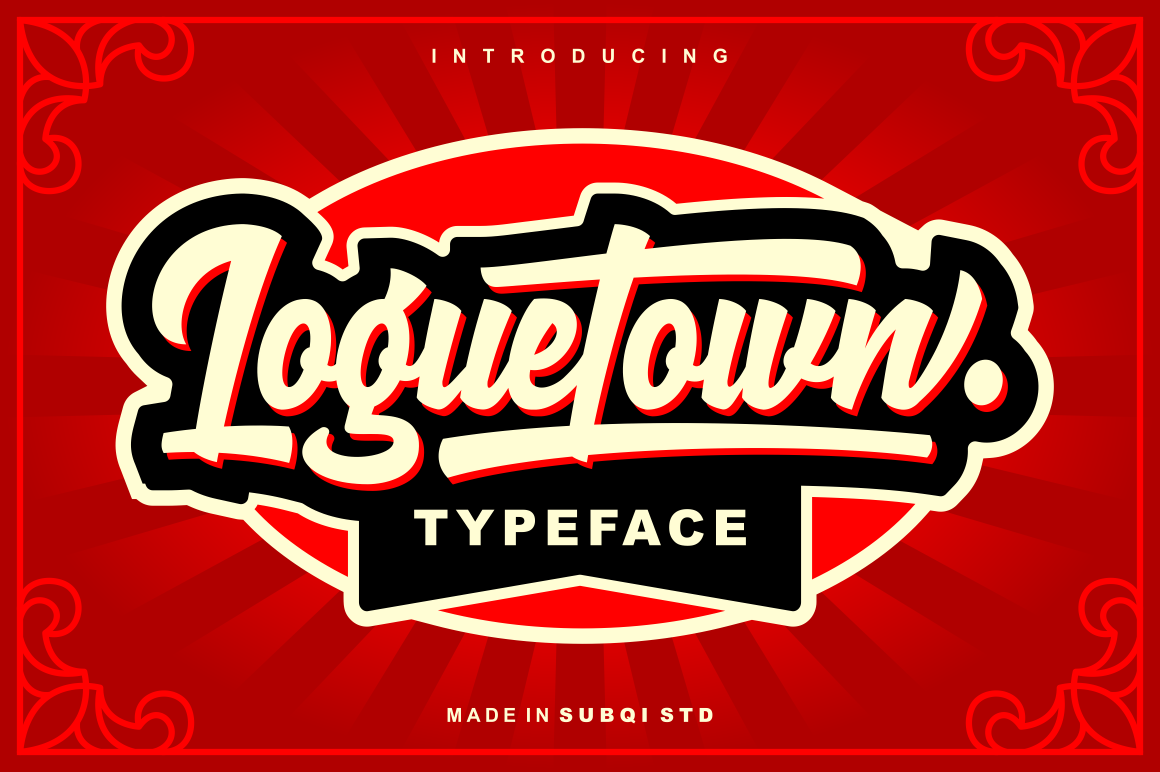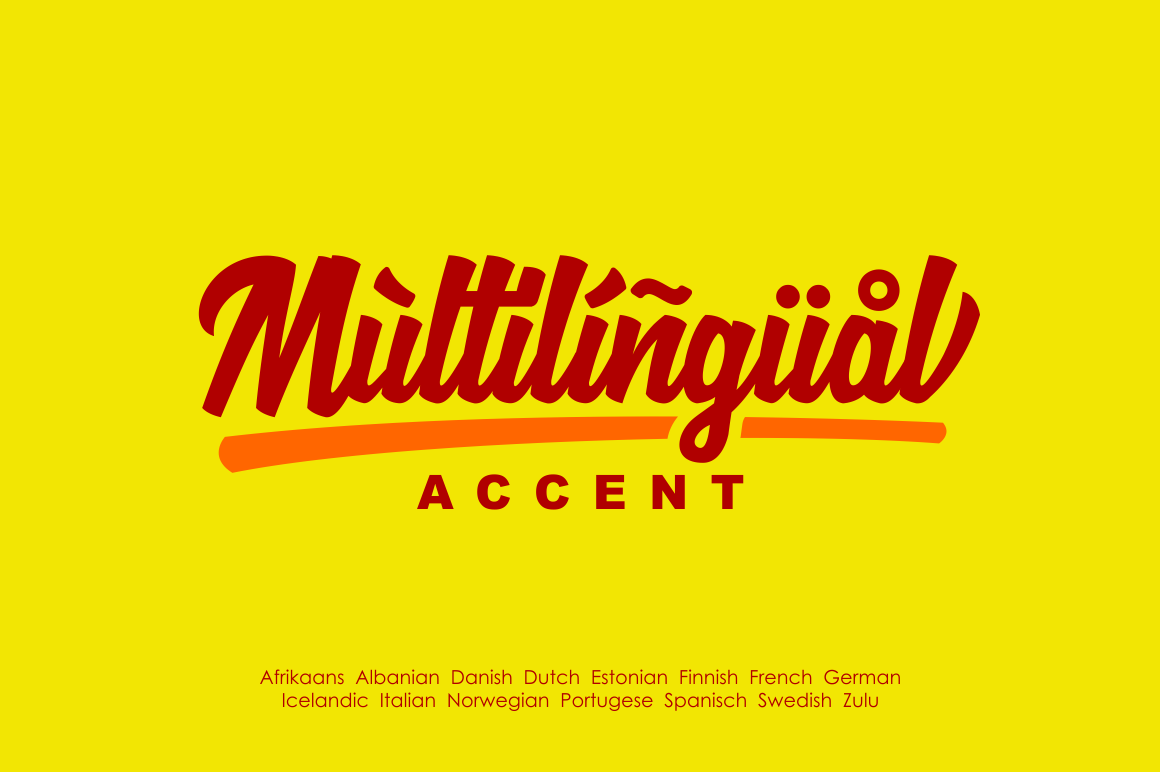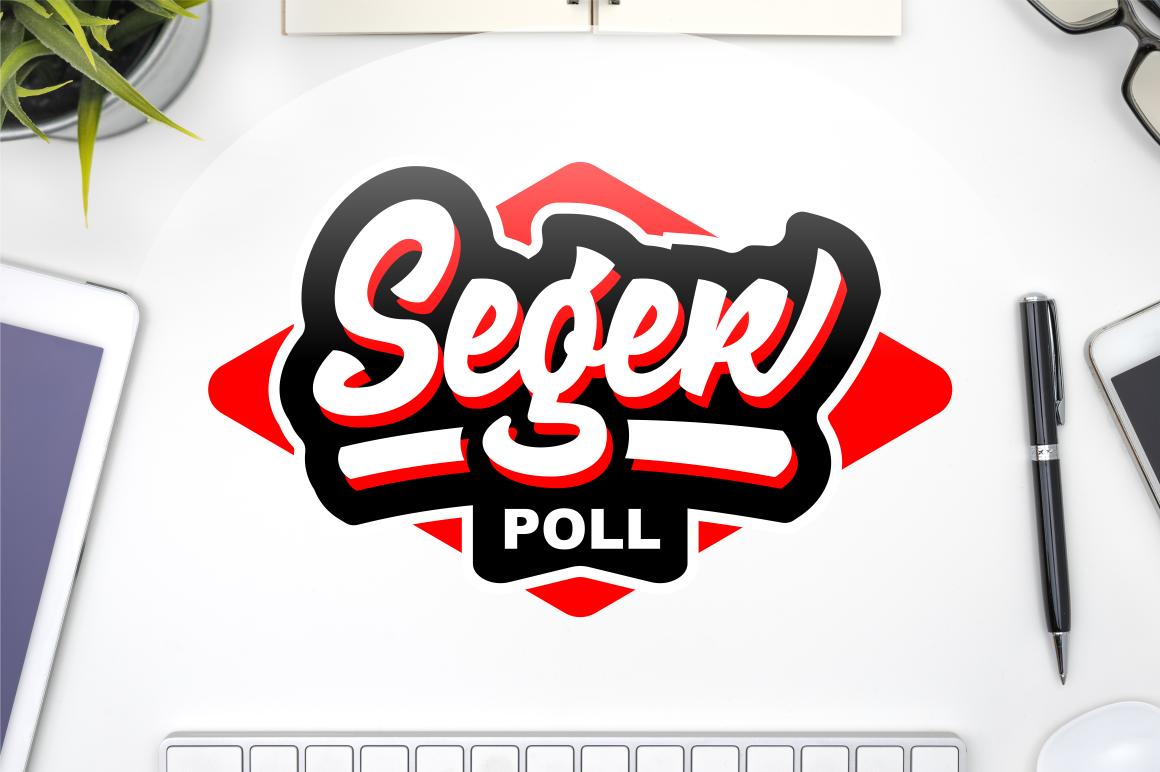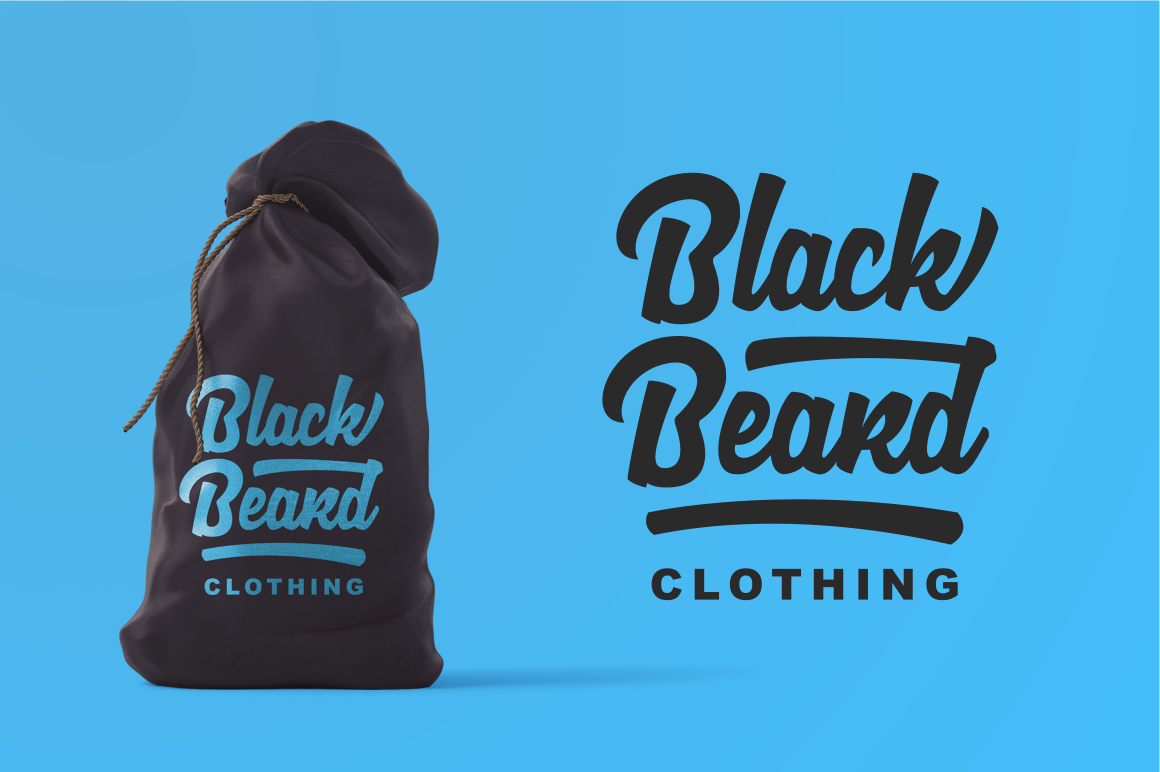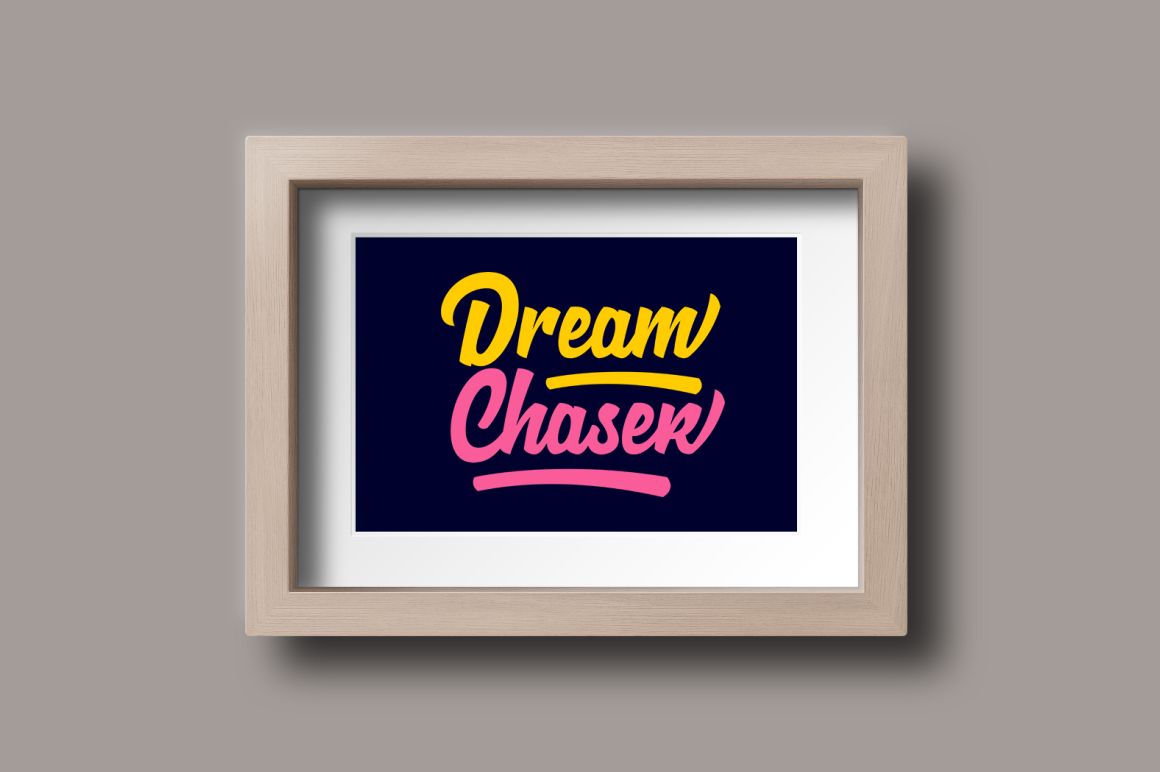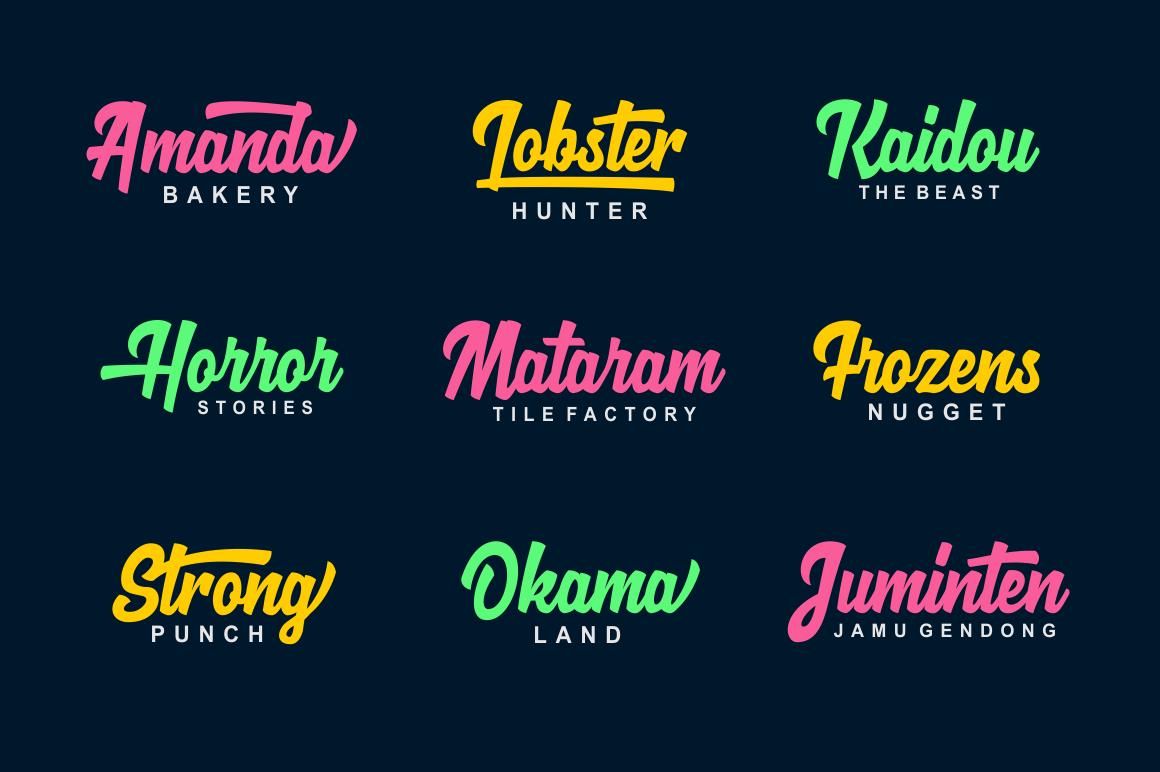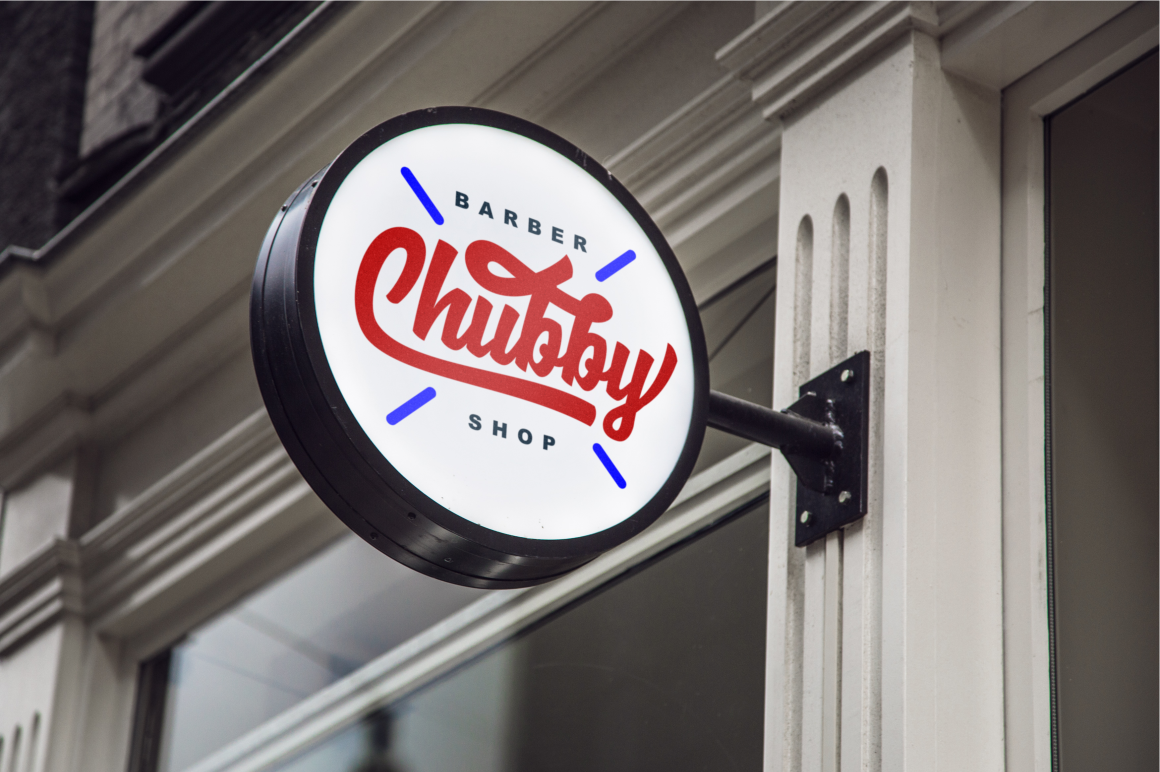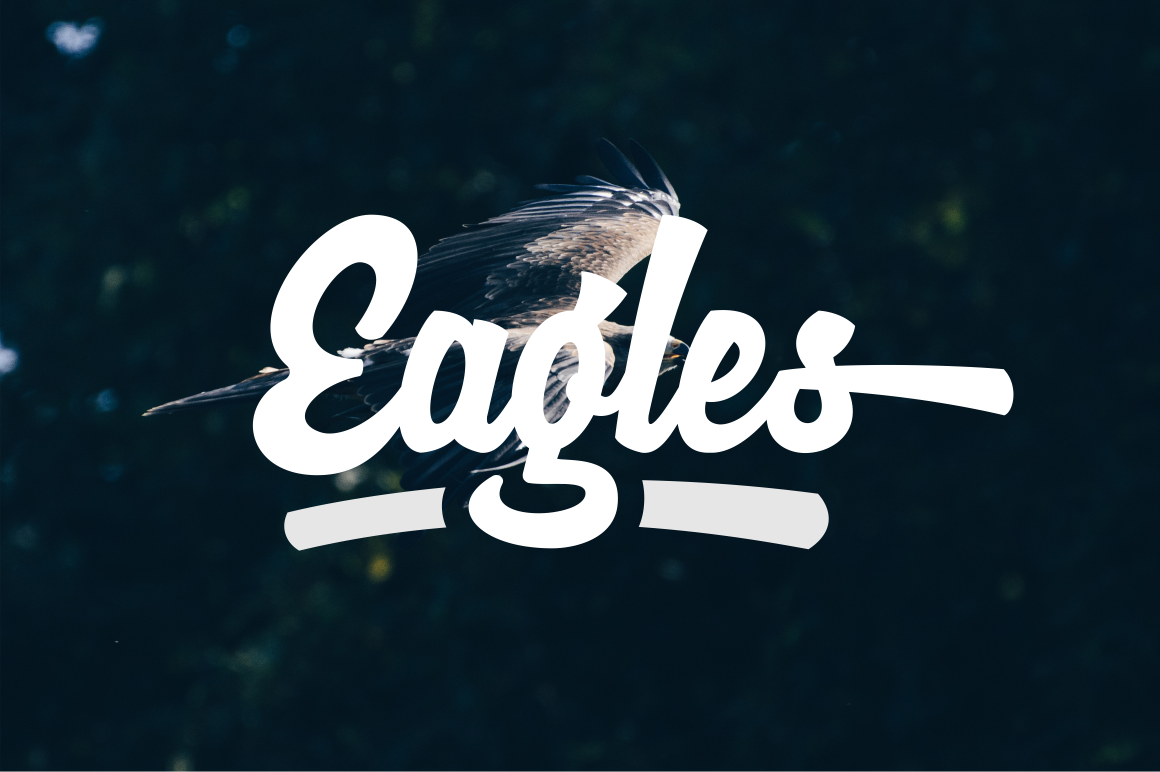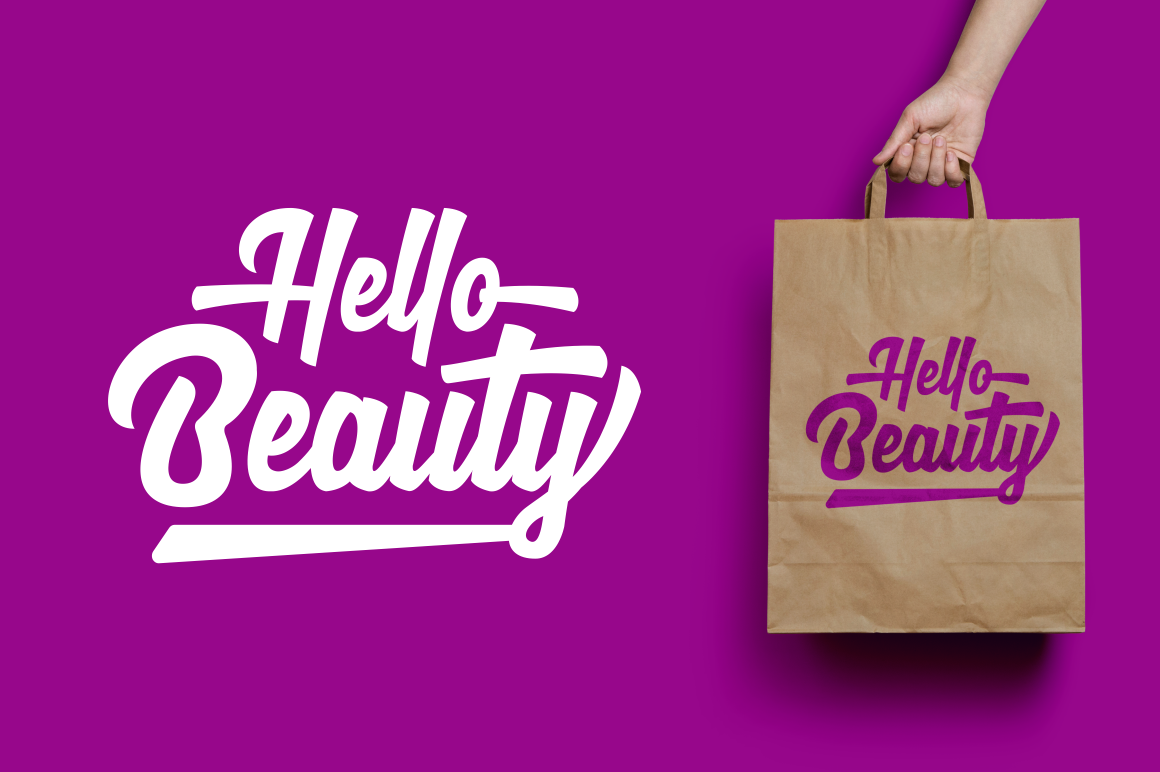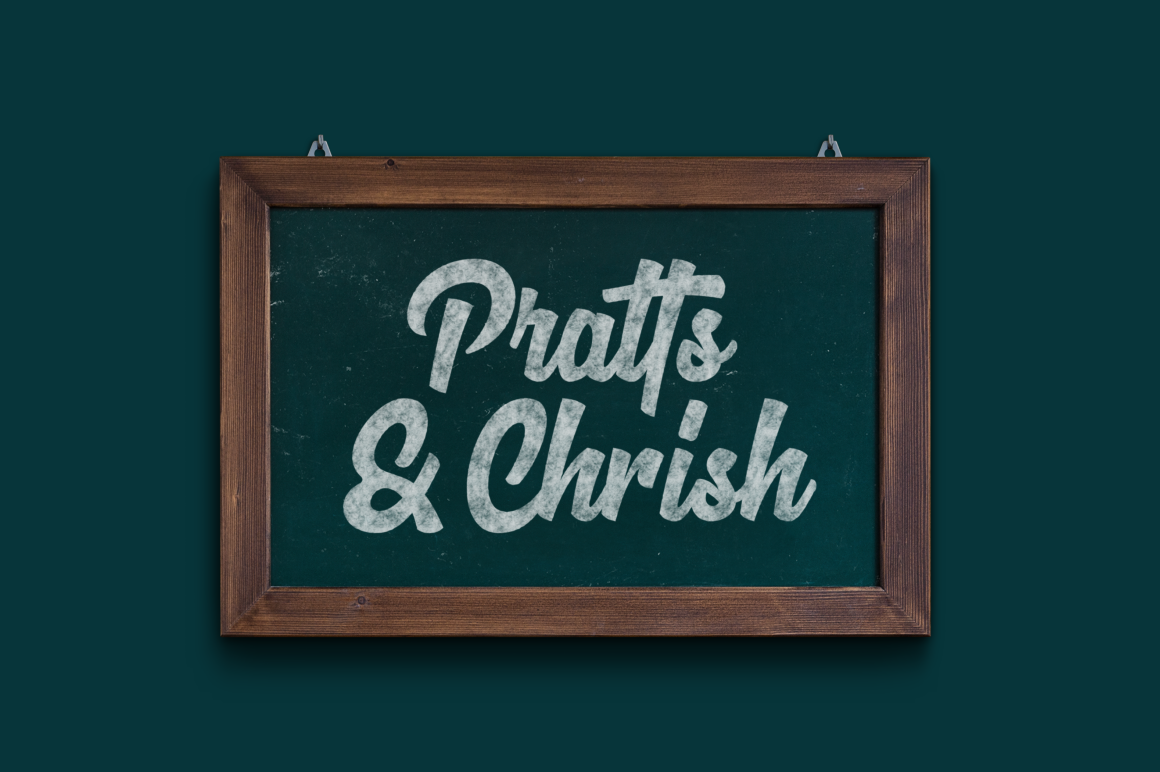
Loguetown Font
About Loguetown Font
Loguetown is a bold script, inspired by brush lettering.
It’s the perfect typeface for creating strong communicative designs that are guaranteed to leave an impression.